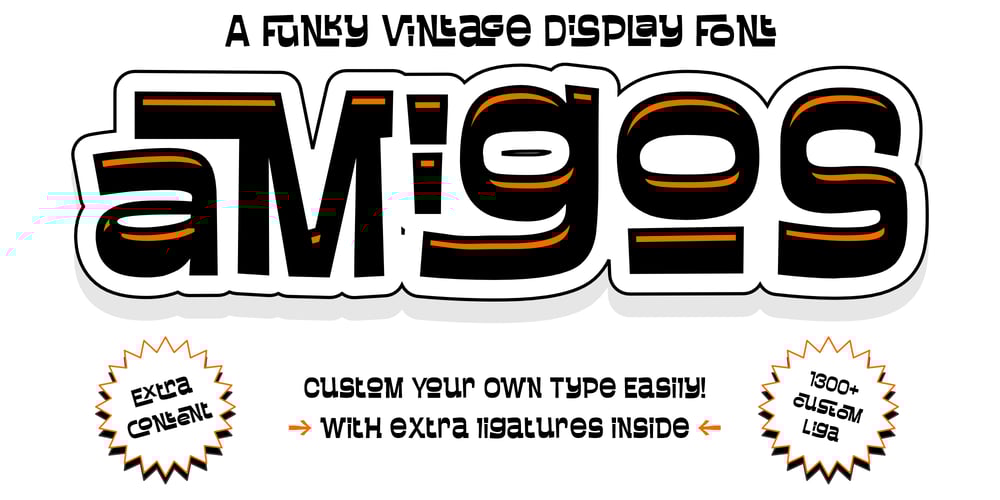
Amigos Liga Font Family was designed by Muhammad Jauhar Azmi and published by Brainware Graphic. Amigos Liga contains 1 styles and family package options. Amigos Liga is a vintage retro display font. with a lot of ligatures, it could be a nice font for lettering design, typography design, logotype and many more. Create custom logotype could be easier with Amigos Liga Font